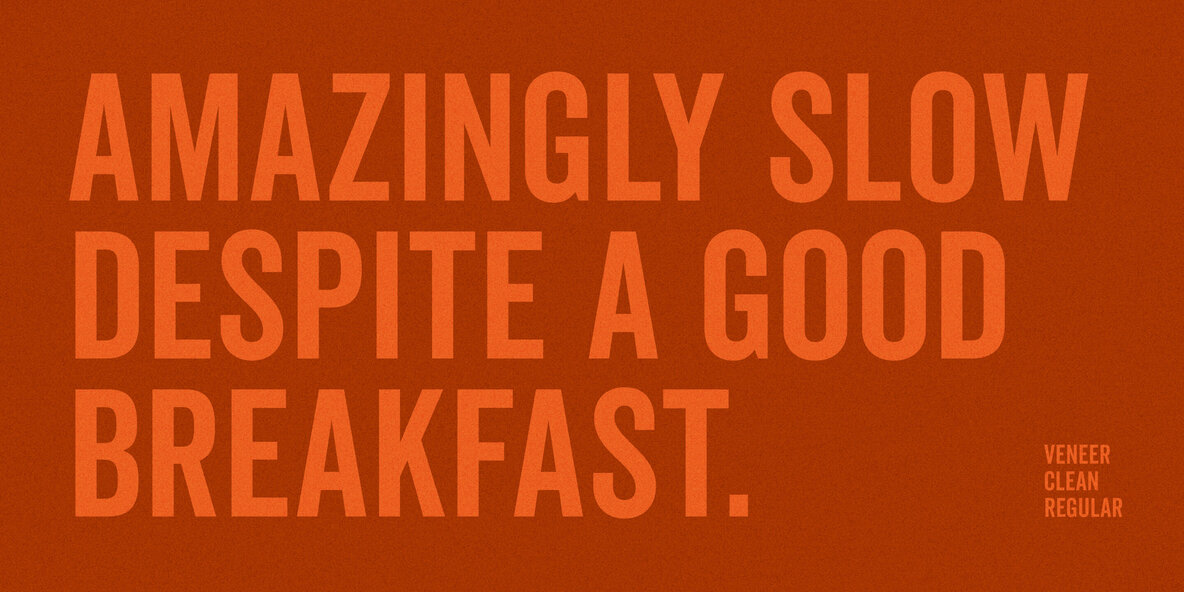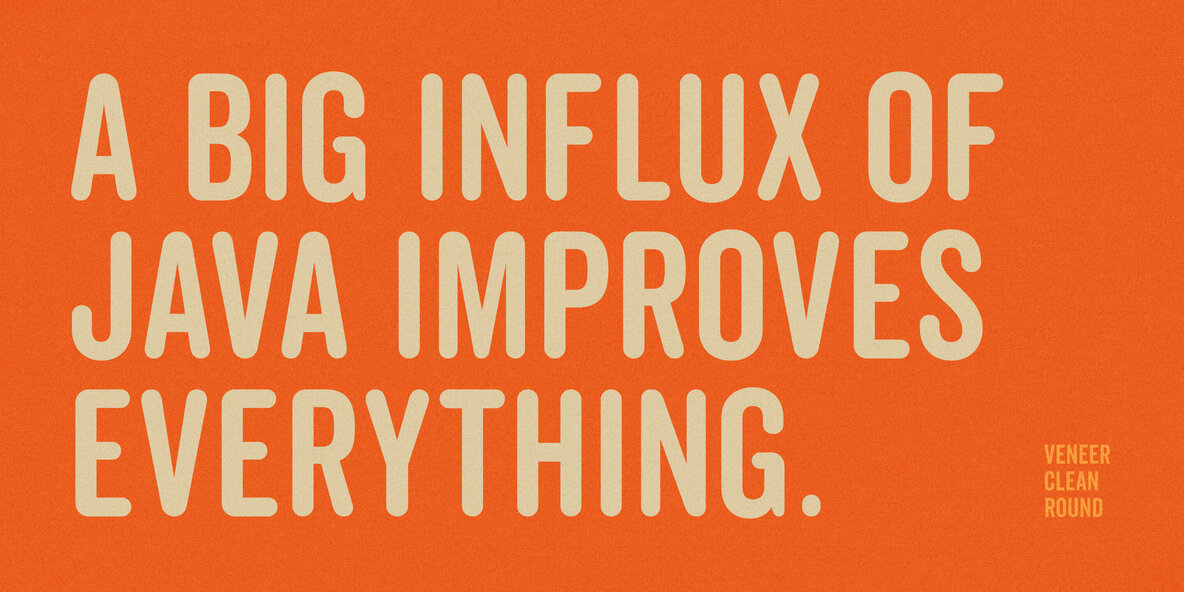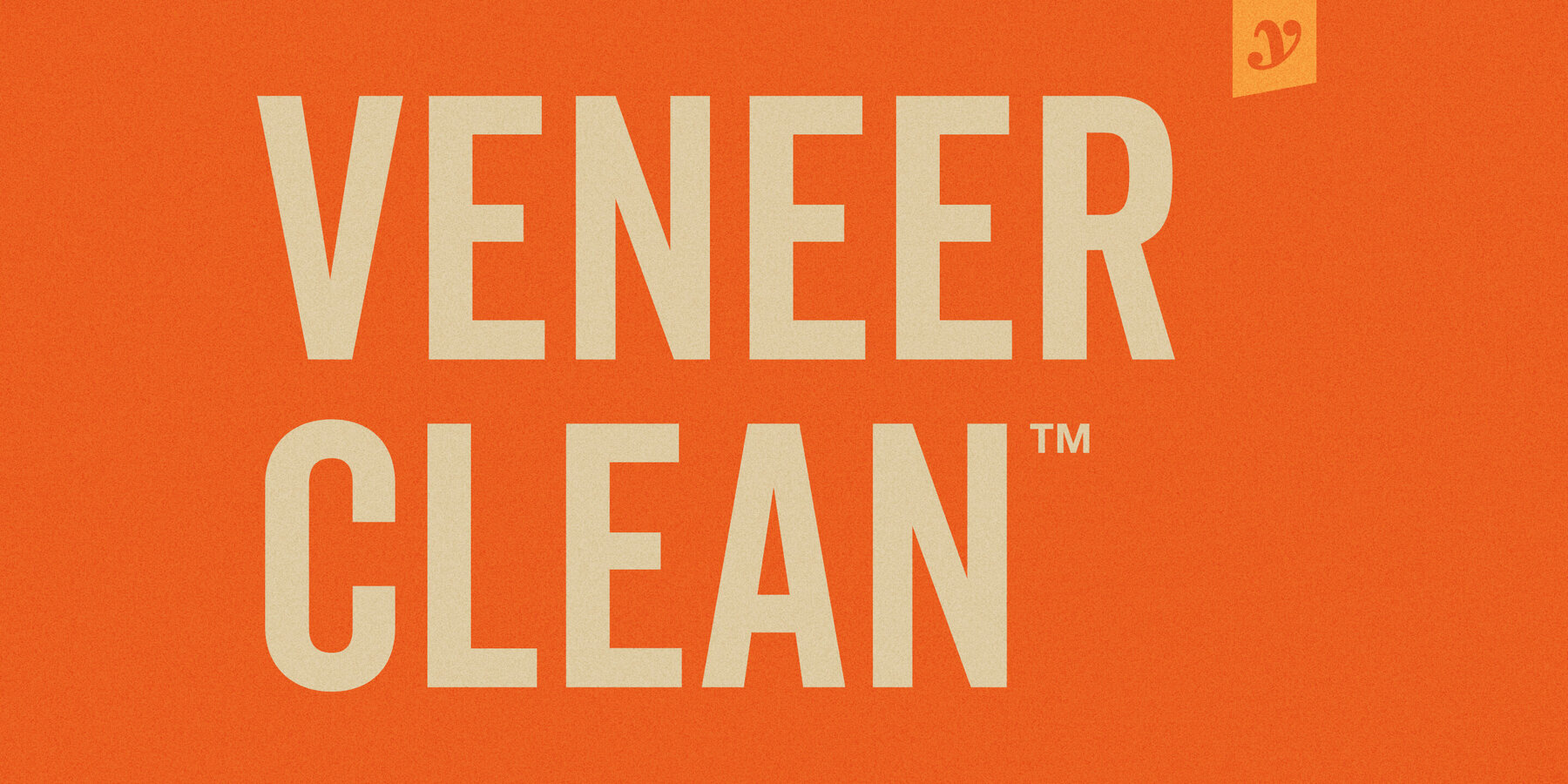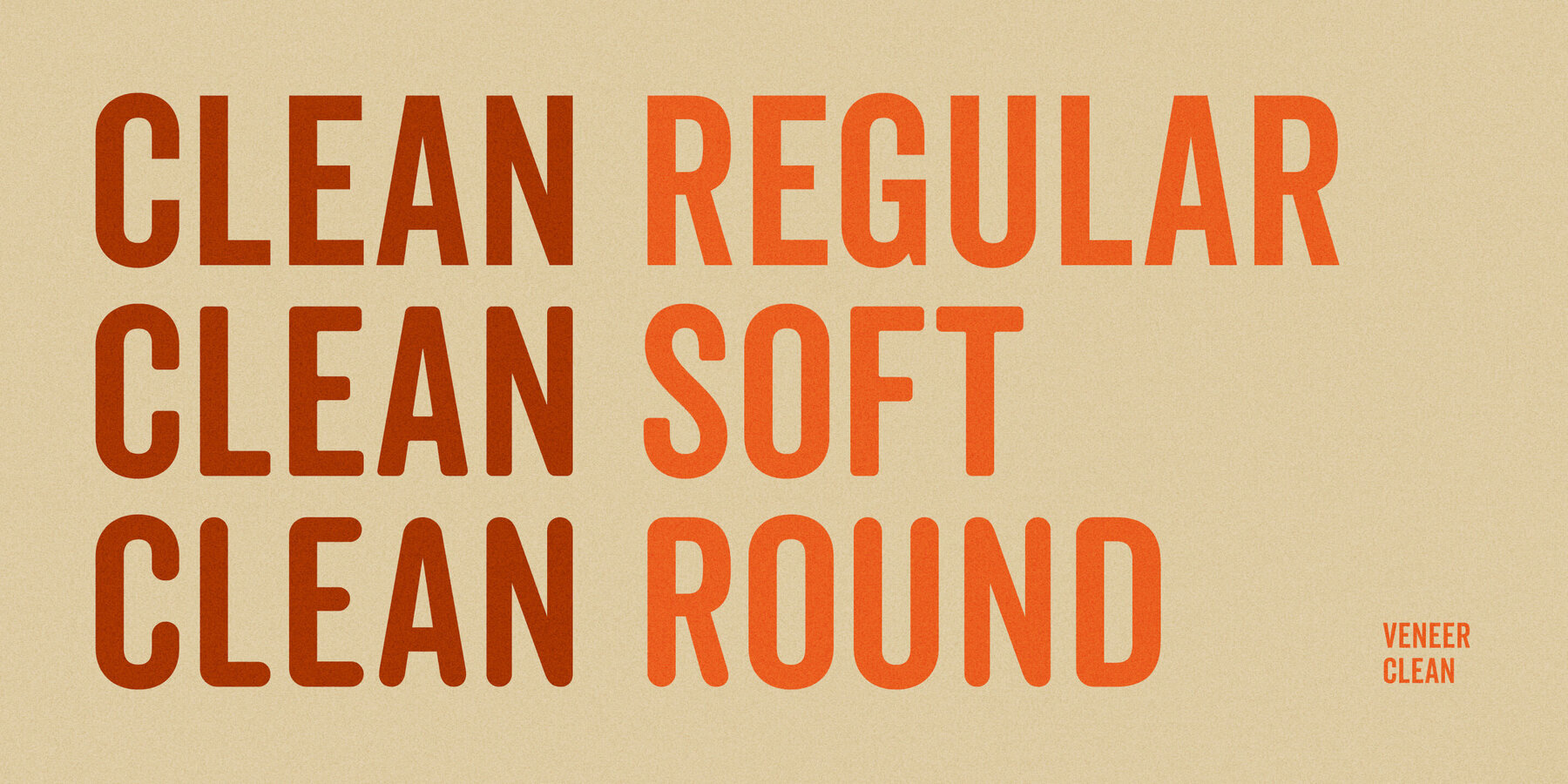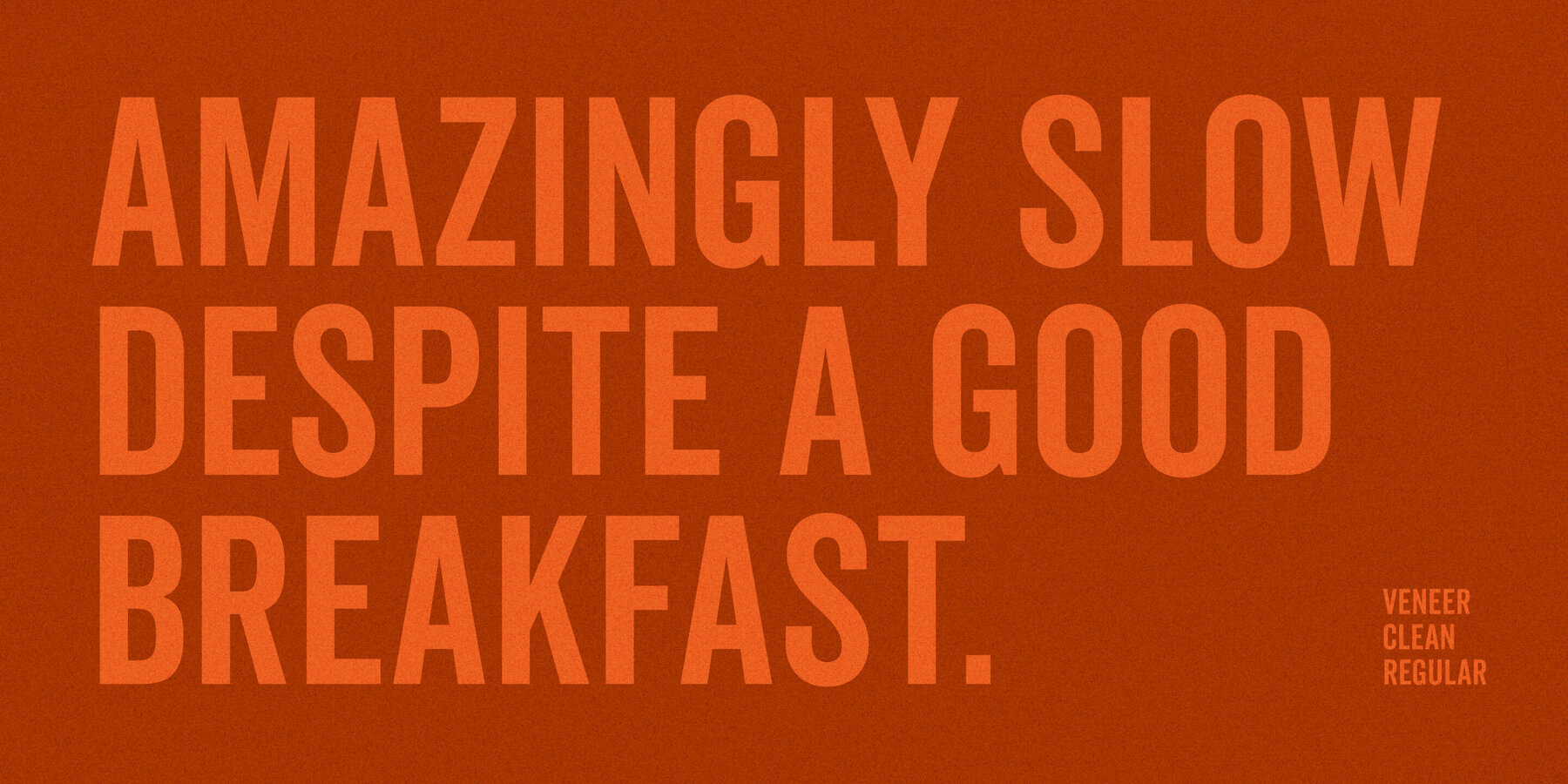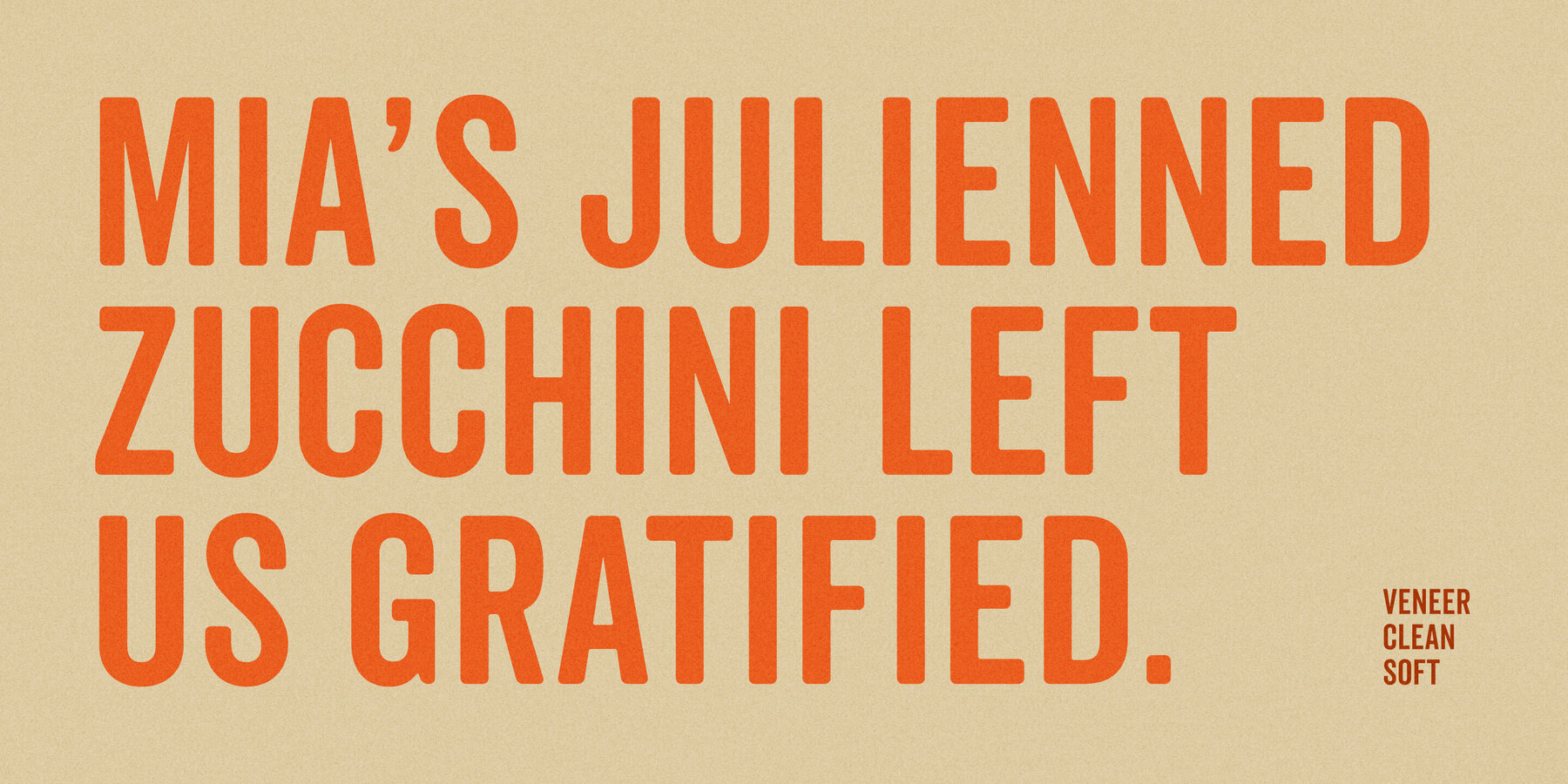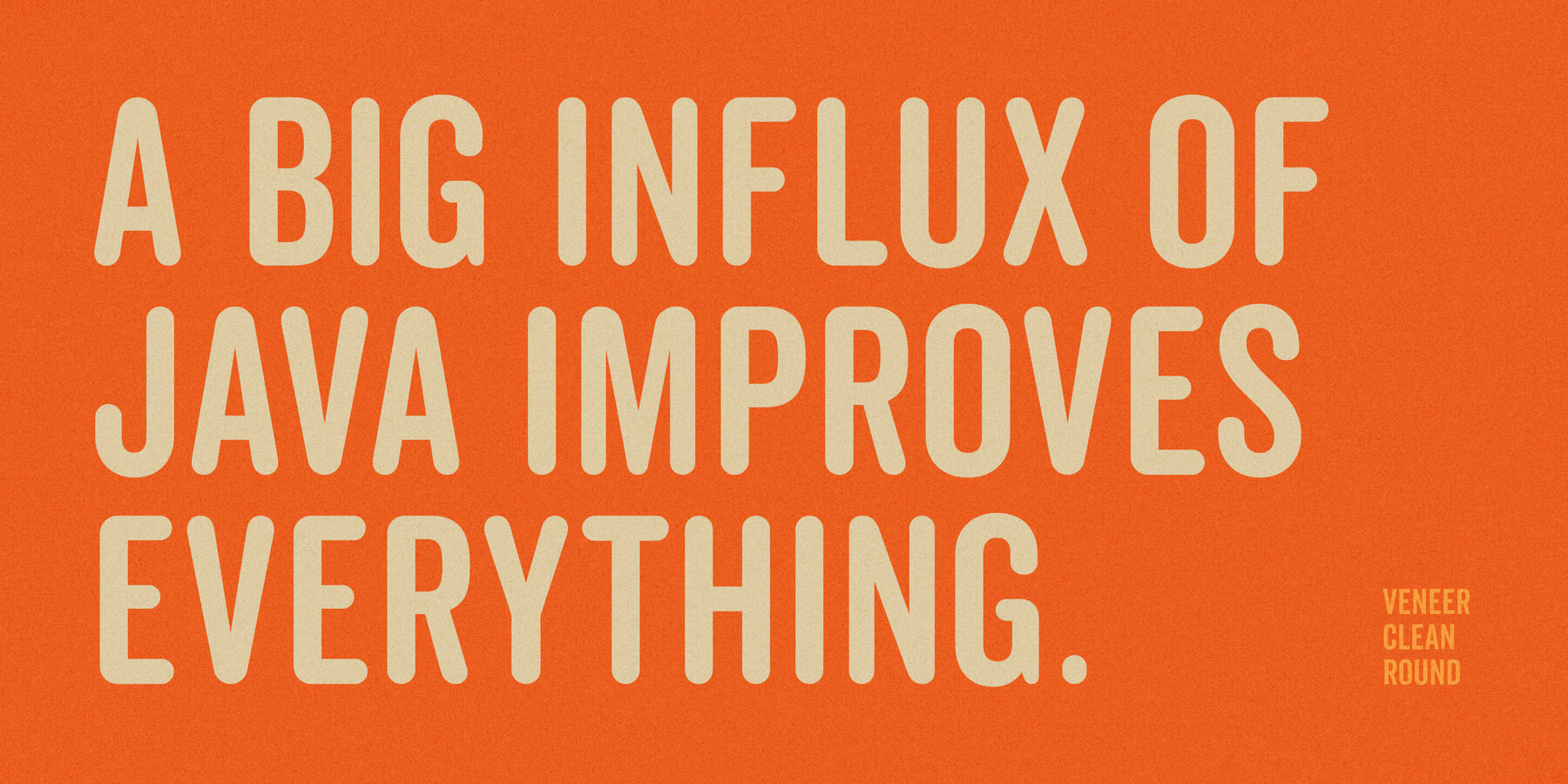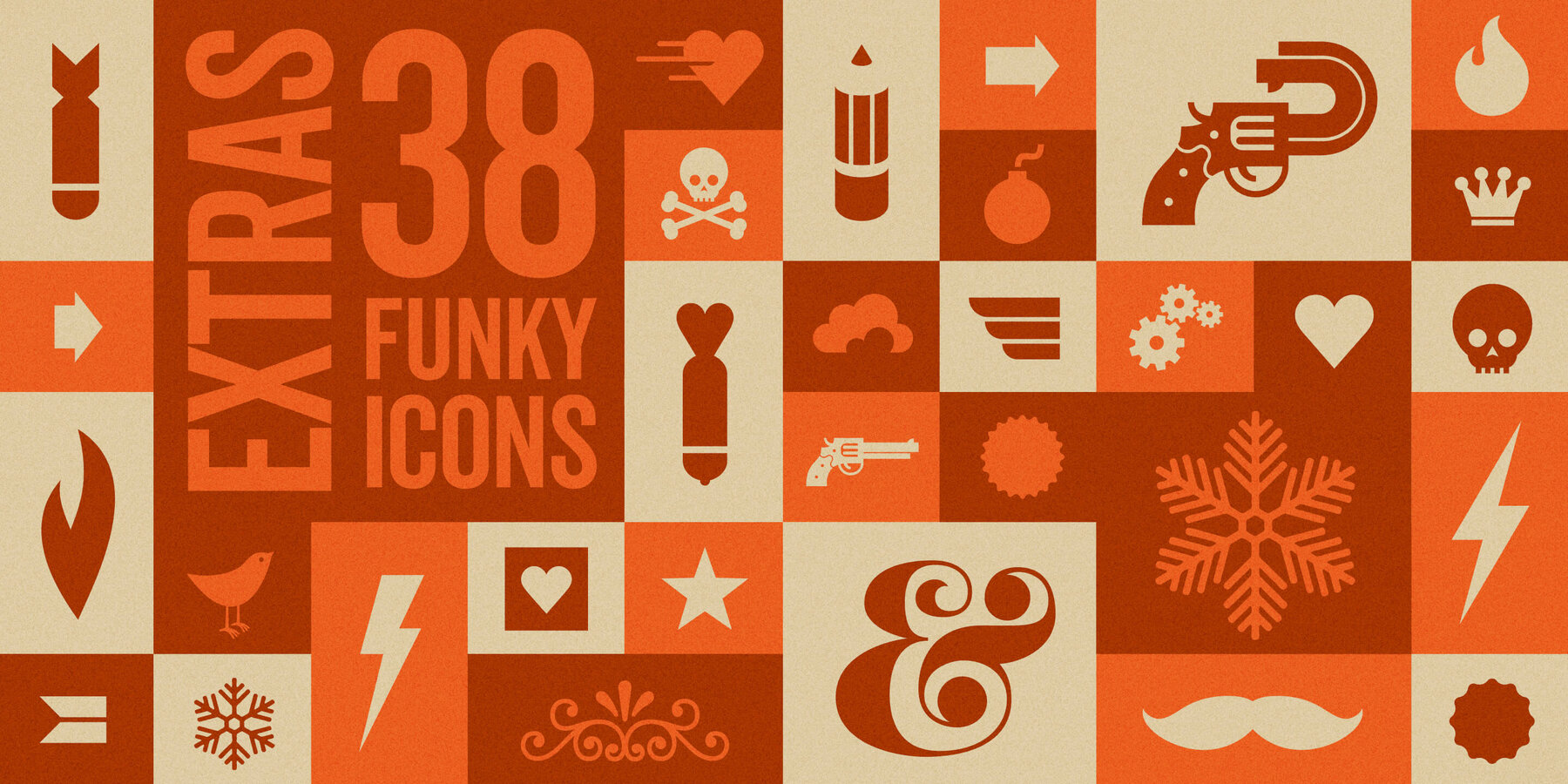
Veneer Clean Font
Veneer Clean from Yellow Design Studio is the non-distressed version of the Veneer letterpress type family. The 8-font family includes Regular, Soft and Round versions with italics plus a free set of funky icons.